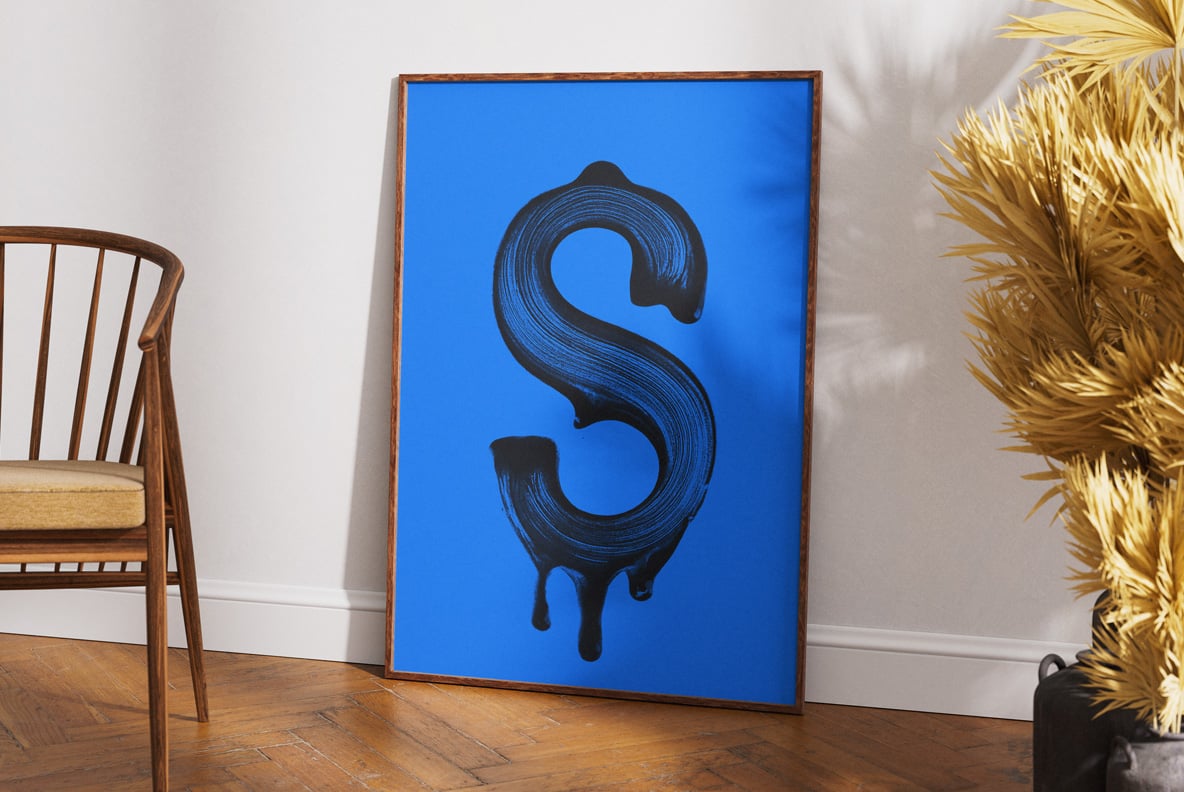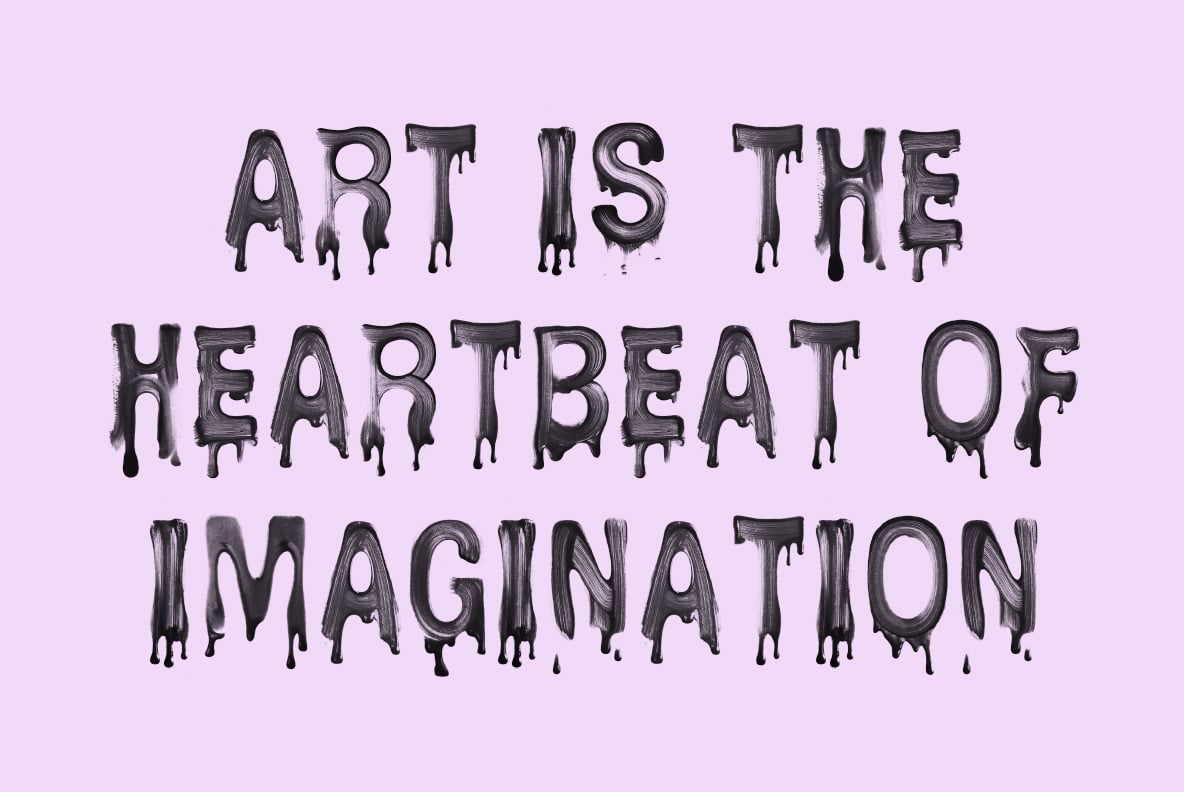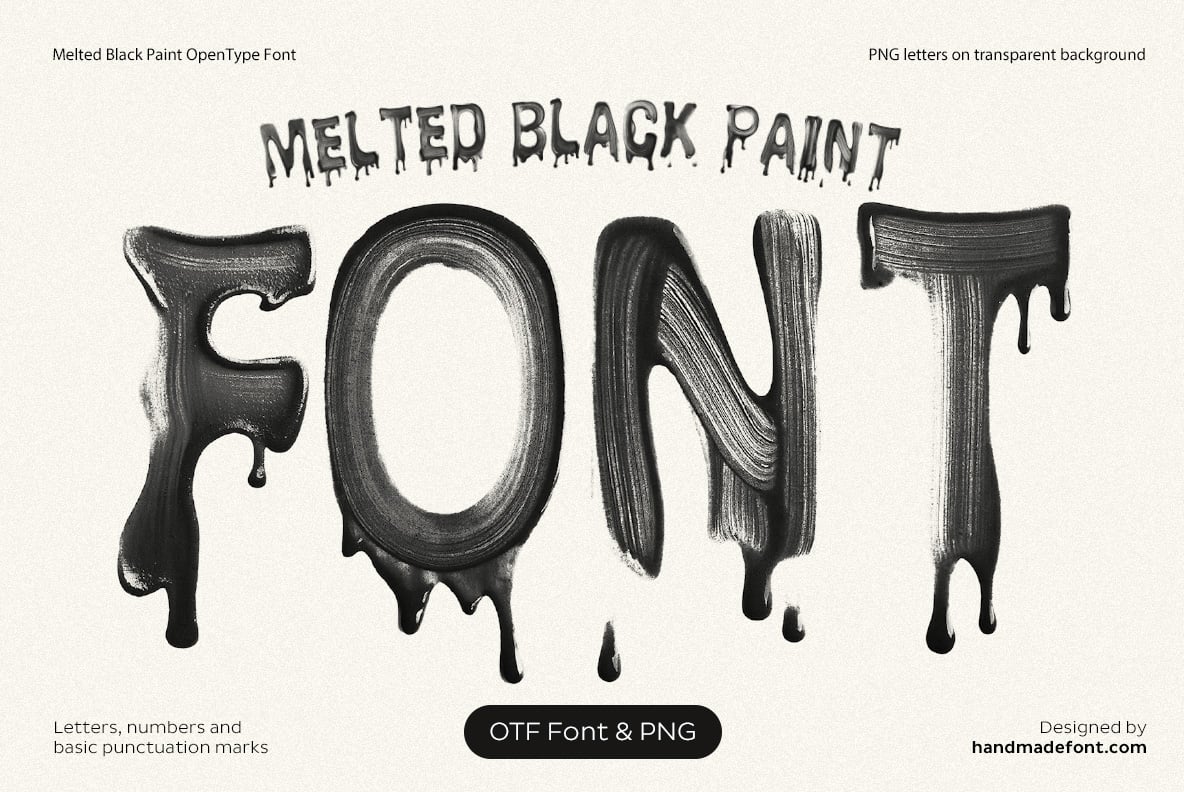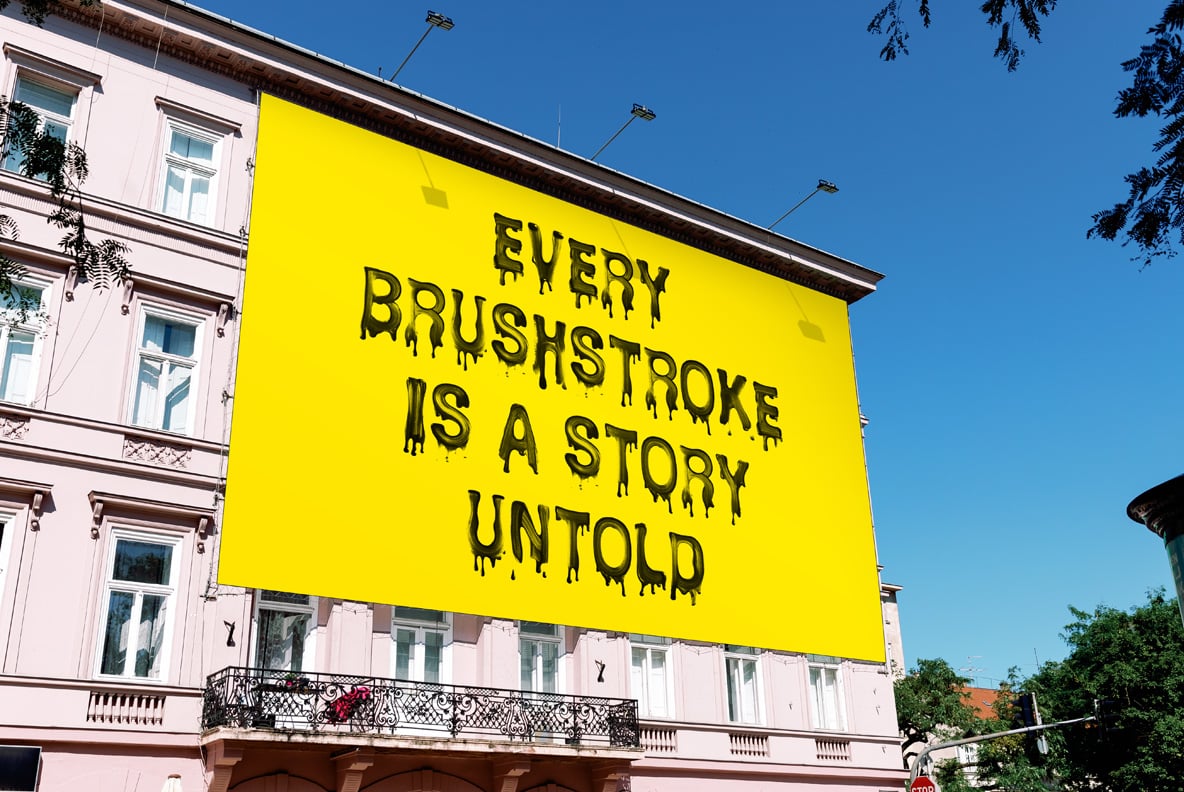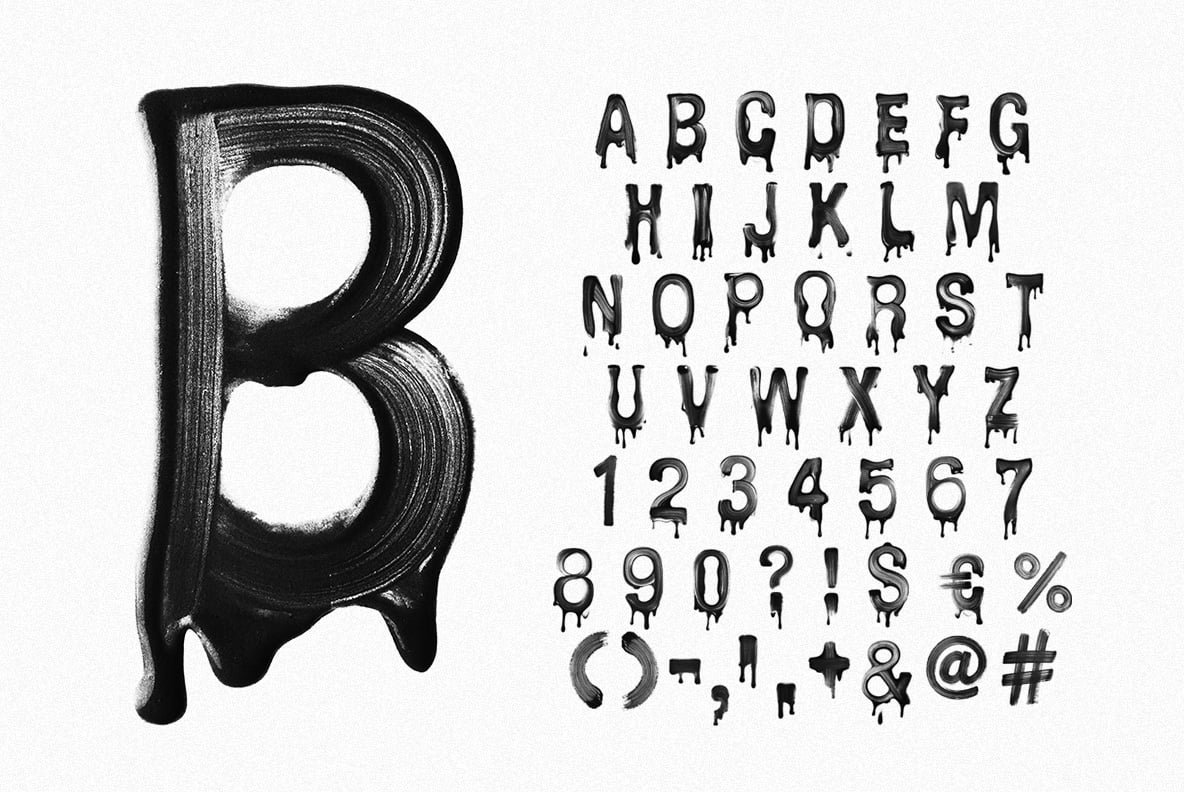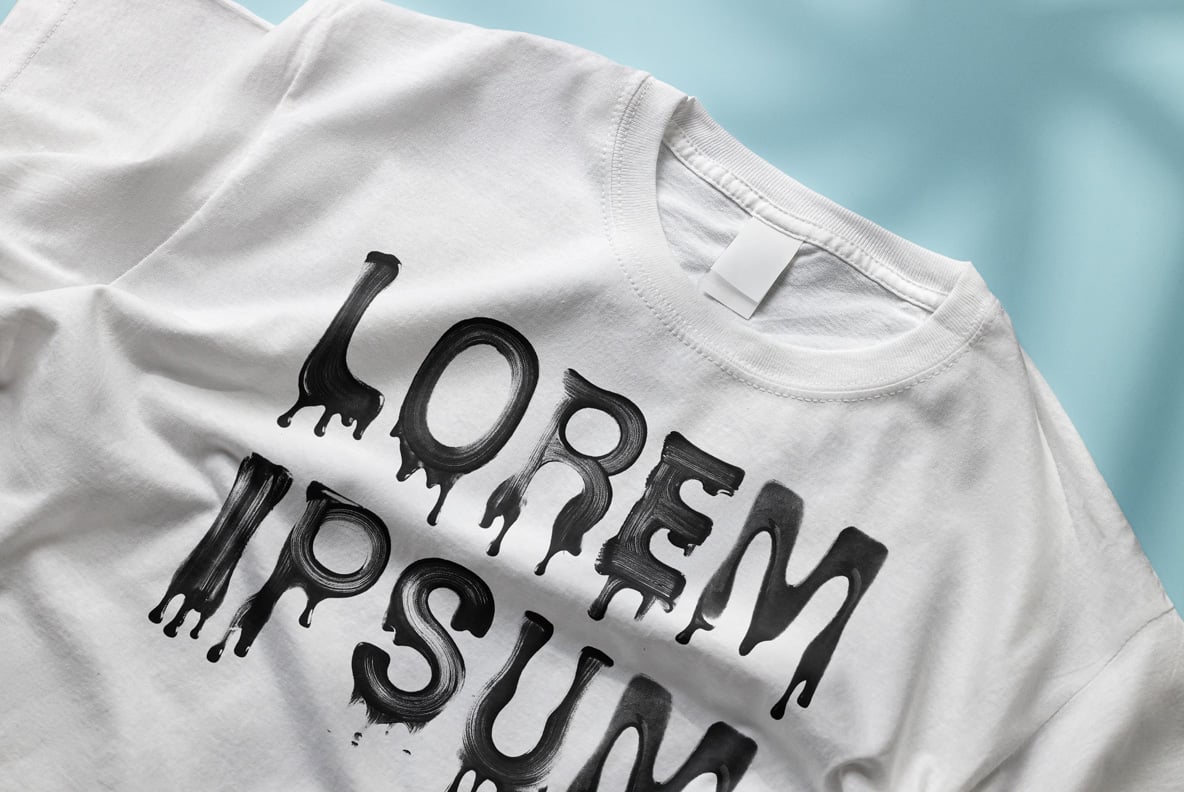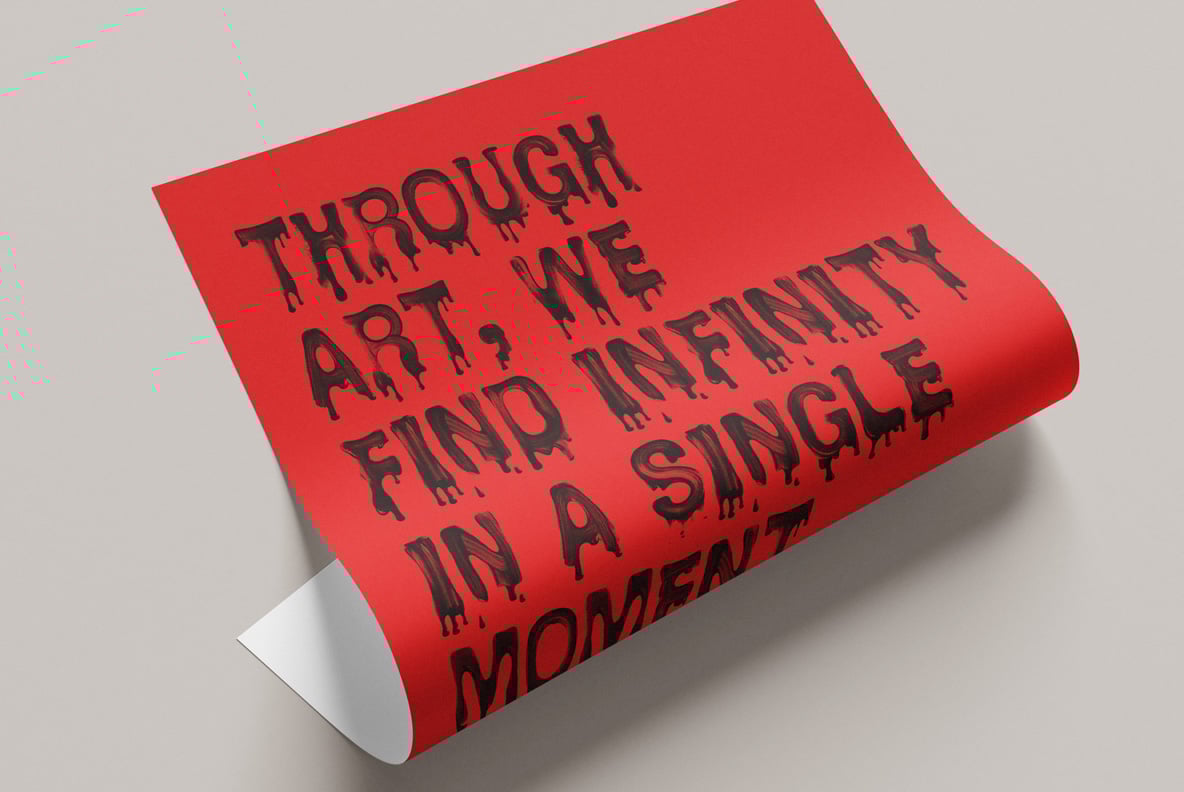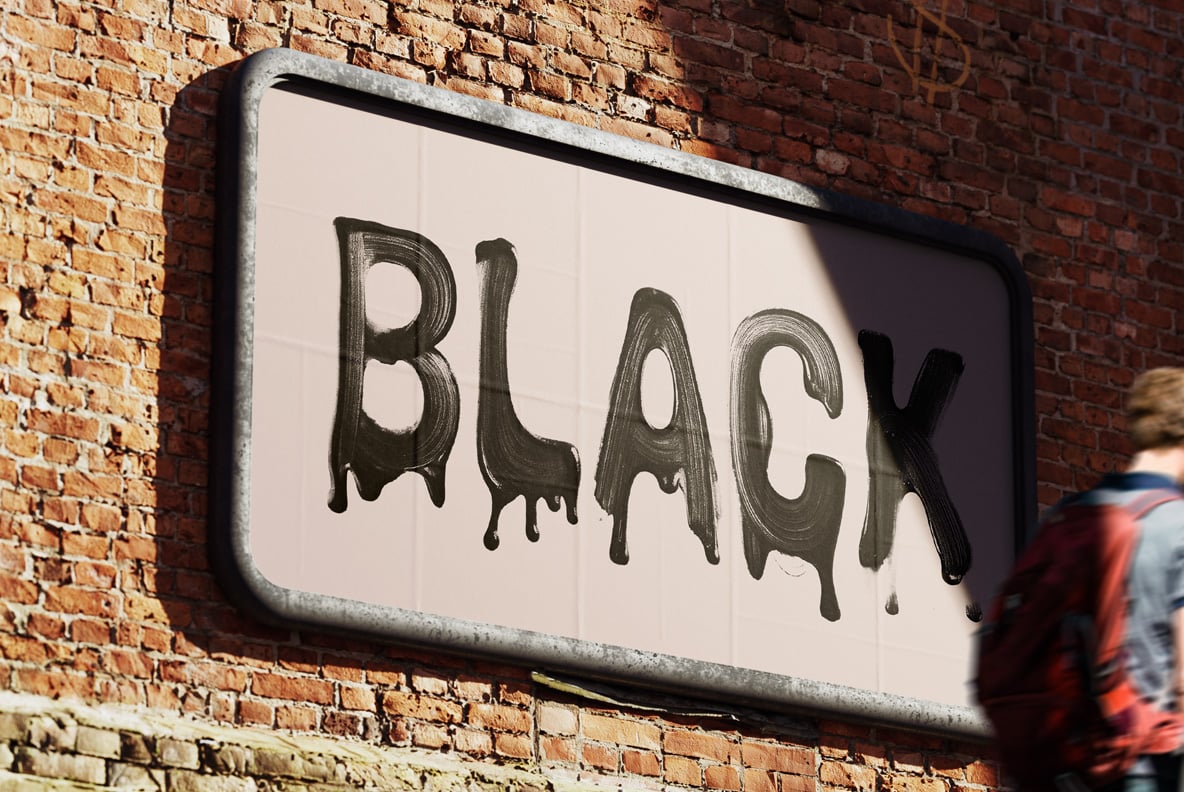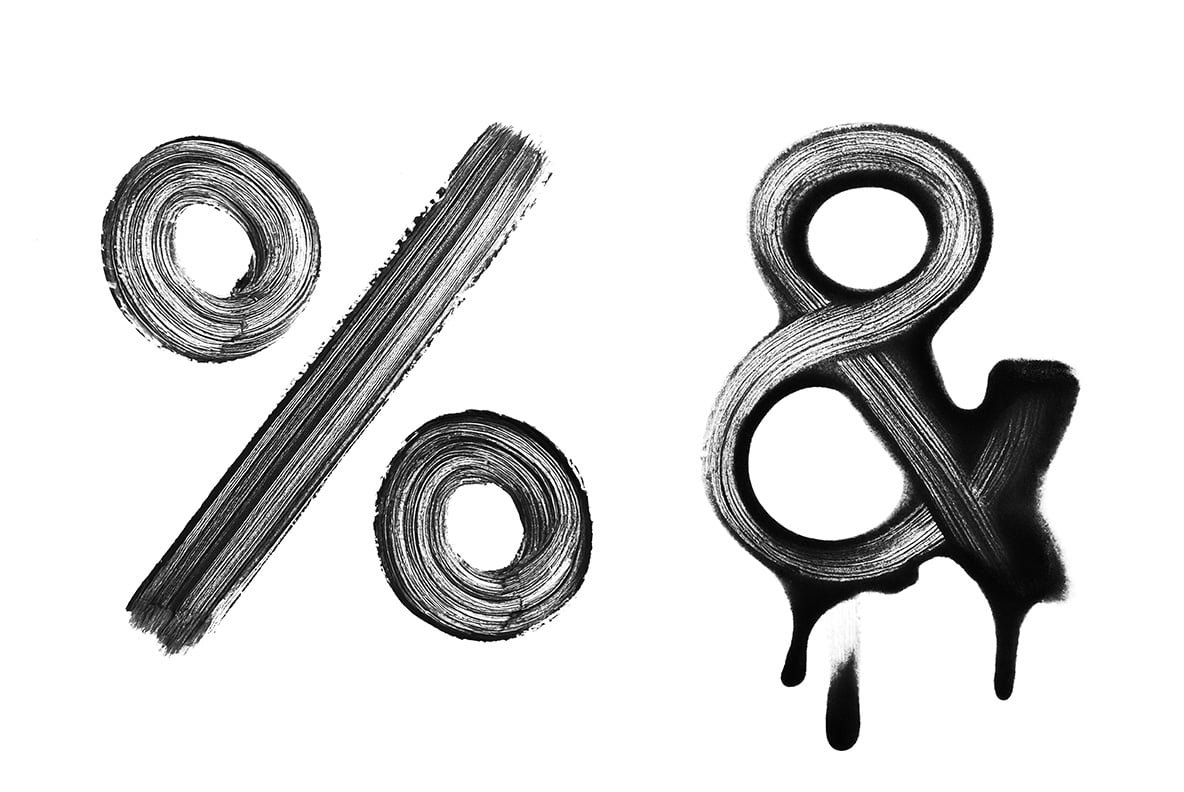
Melt Black Paint Font
Black paint comes alive in the *Melt Black Paint Font*, a striking typeface crafted from bold, flowing brush strokes. Each letter is a work of art, blending raw energy with elegance, as if painted with a masterful black stroke brush. Perfect for creating impactful designs, it evokes the essence of handmade artistry and creative expression. Ideal for art-inspired projects, posters, branding, or editorial designs, this font brings a bold, artistic touch to any composition.
A high definition OpenType Font. Contains uppercase characters, numerals and basic punctuation. (Draw height roughly 800 pixels). All letters and glyphs that comprises this font you can see on the preview.
Others : ! ? - . ' $ € % @ &